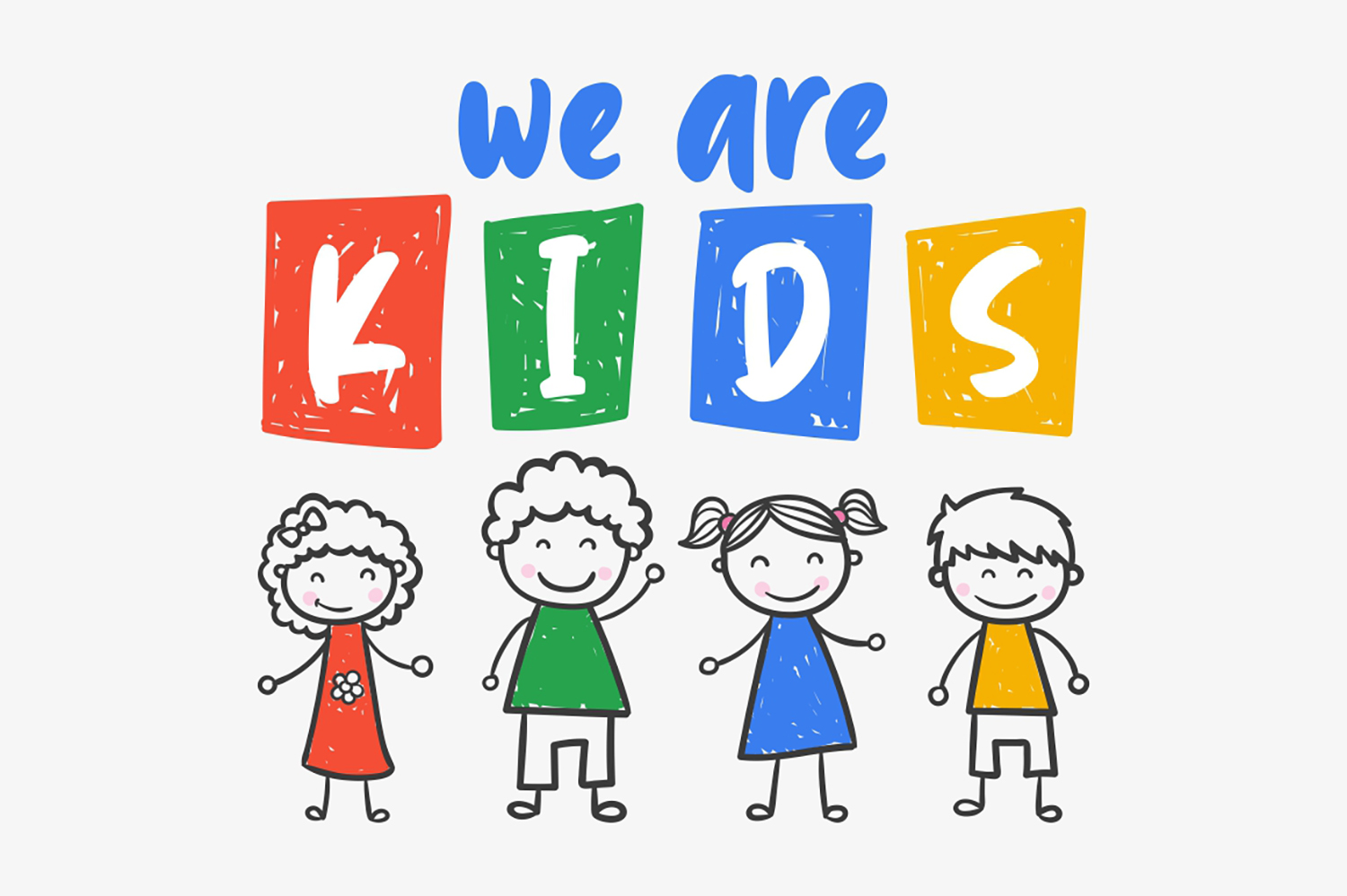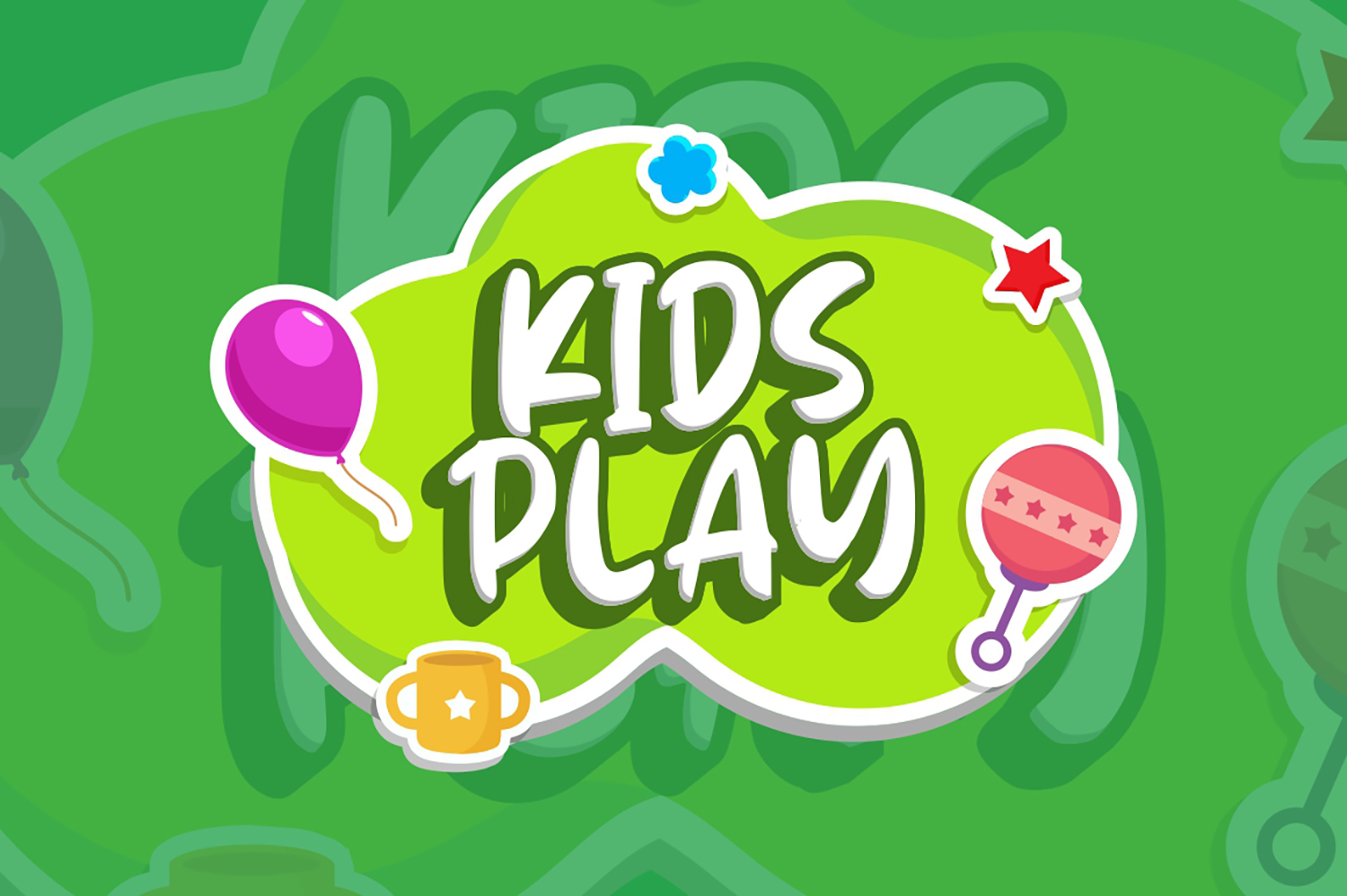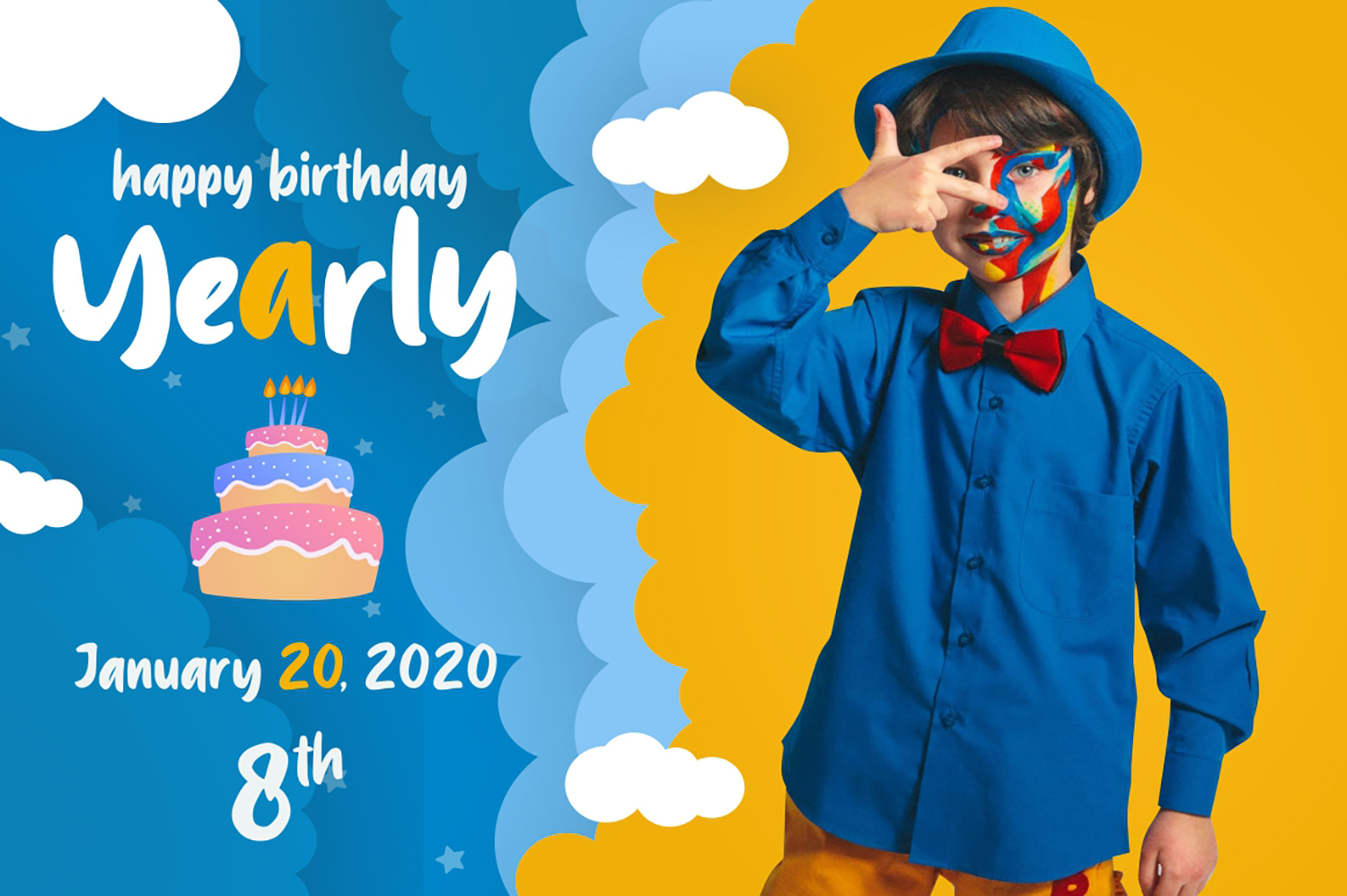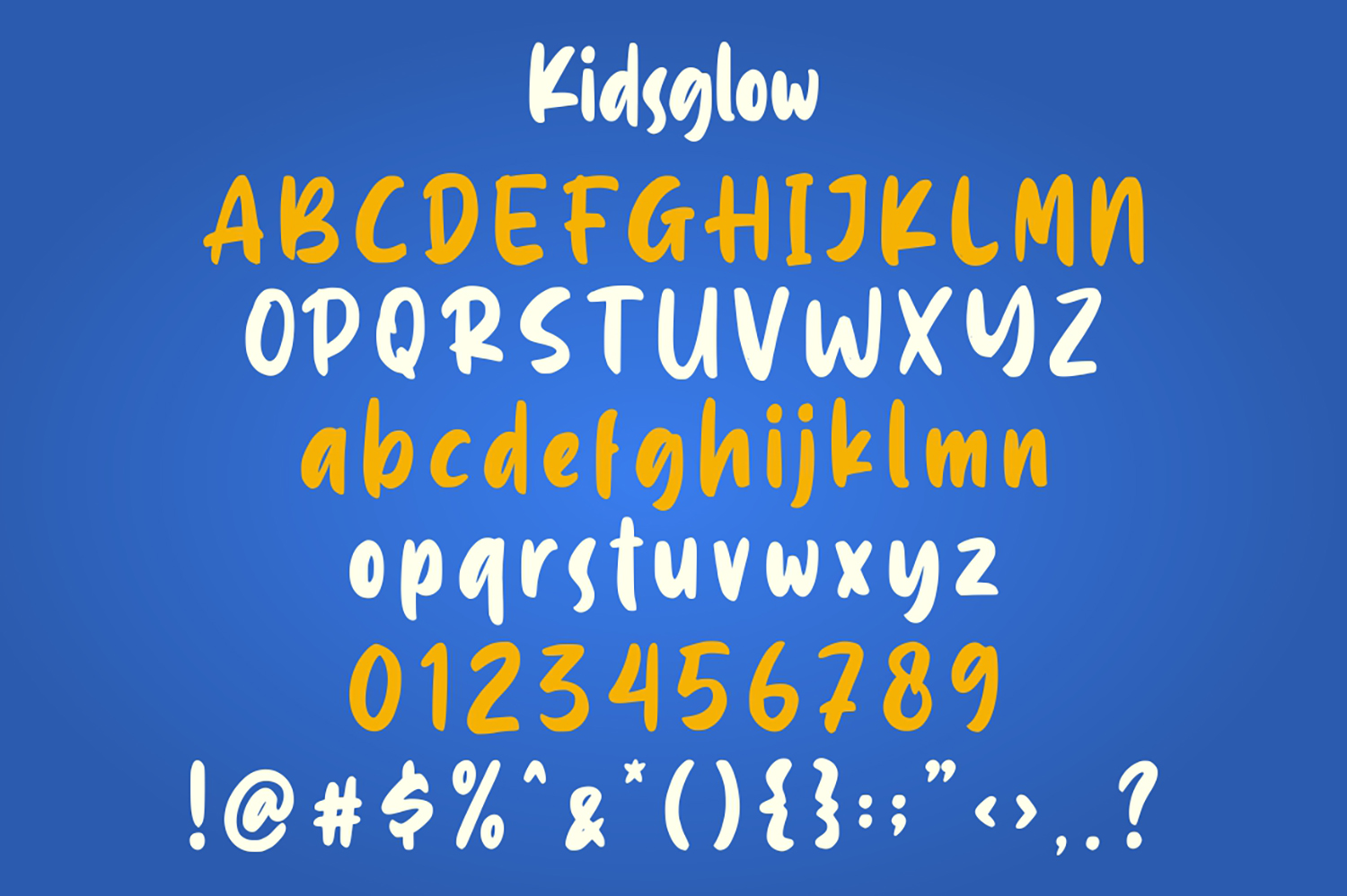
Kidsglow Free Font
Kidsglow Free Font is the perfect font for all your fun designs. The main font file is equipped with ordinary characters (A-Z, a-z, 0-9, ligature, and lots of punctuation), as well as more than 350 glyphs to support most Latin-based languages. Plus, it comes with a super fun ligature. This free typeface was designed by a talented Good Java. If you like it don’t forget to check out the full version.